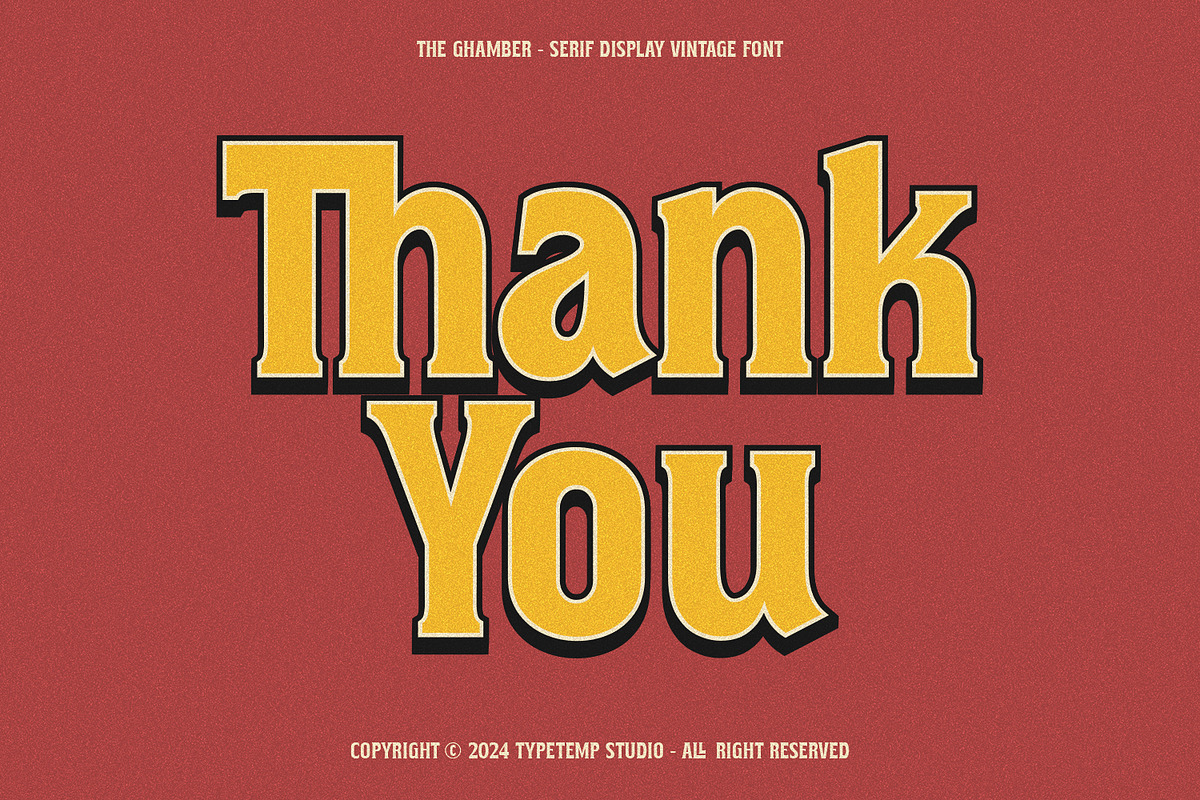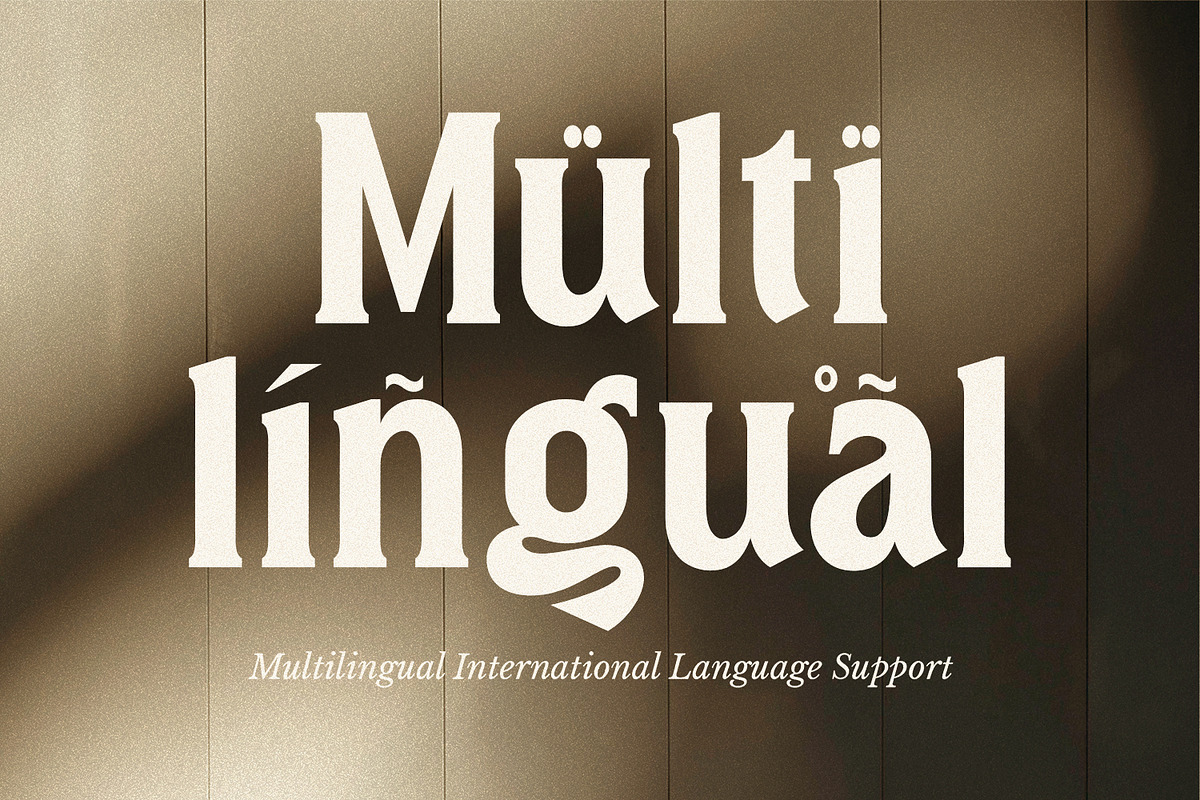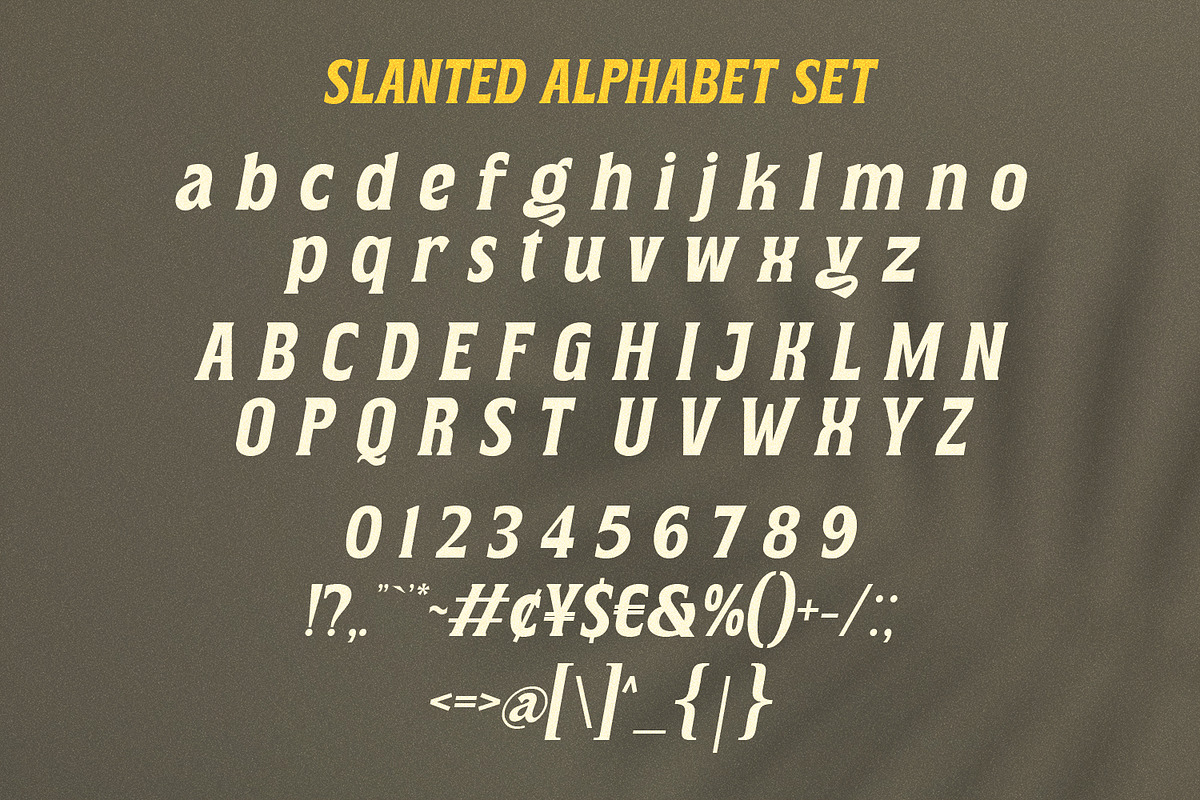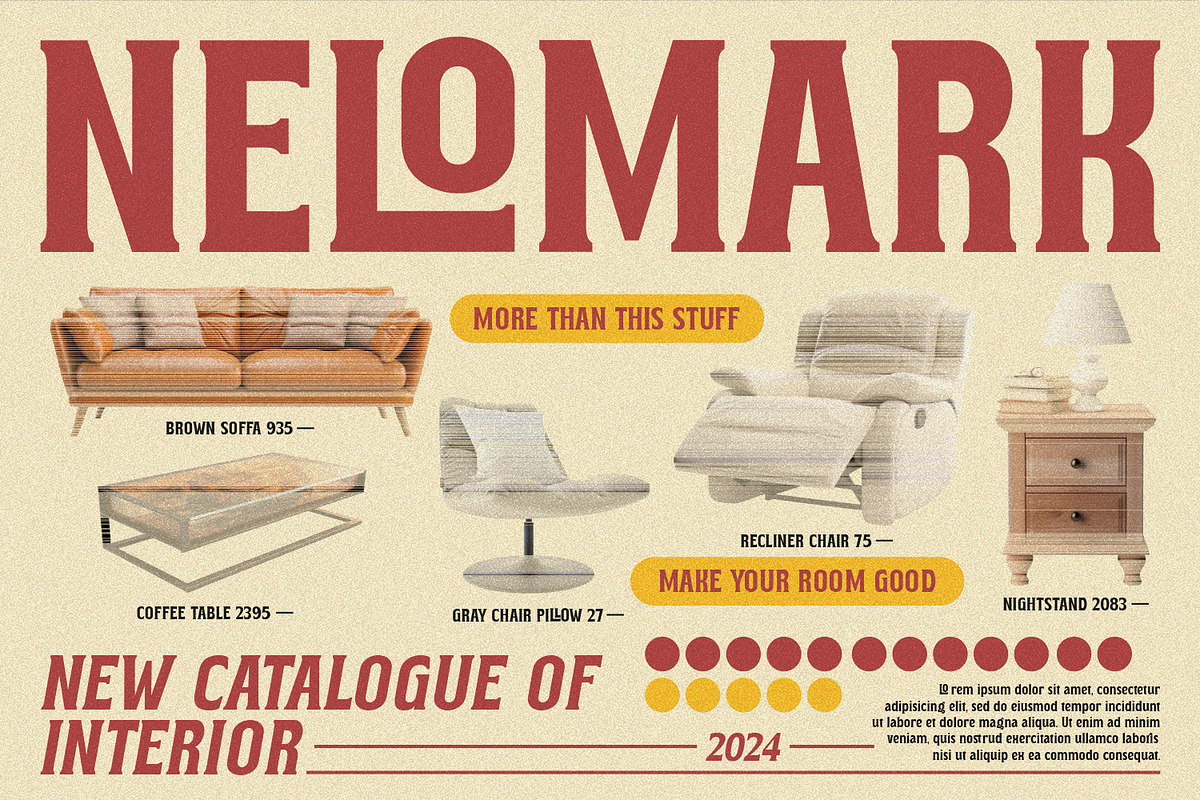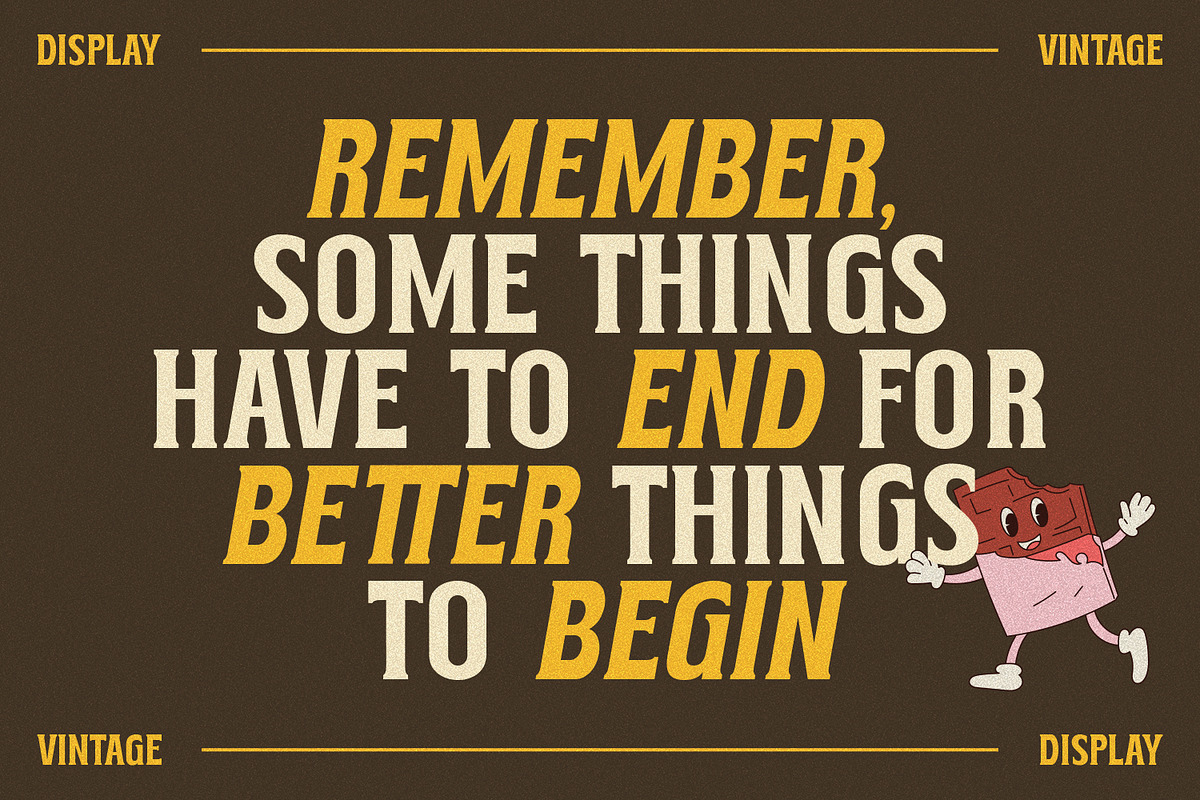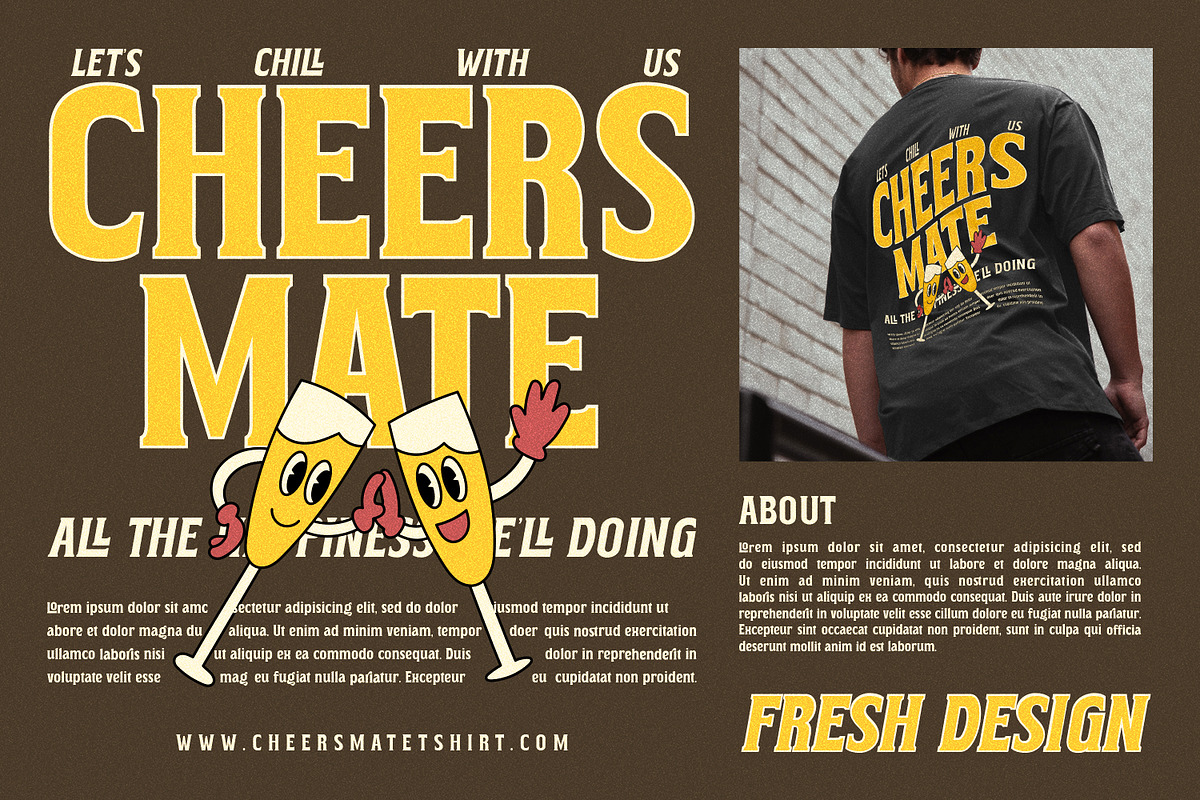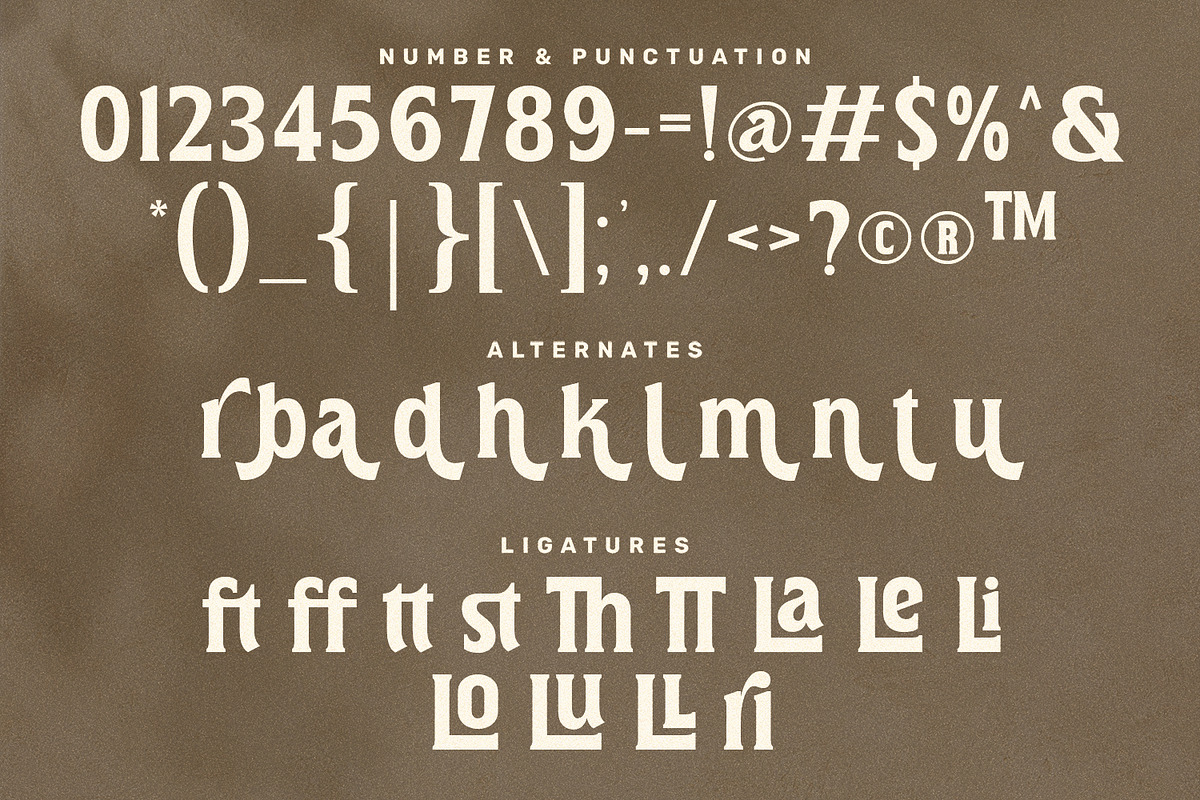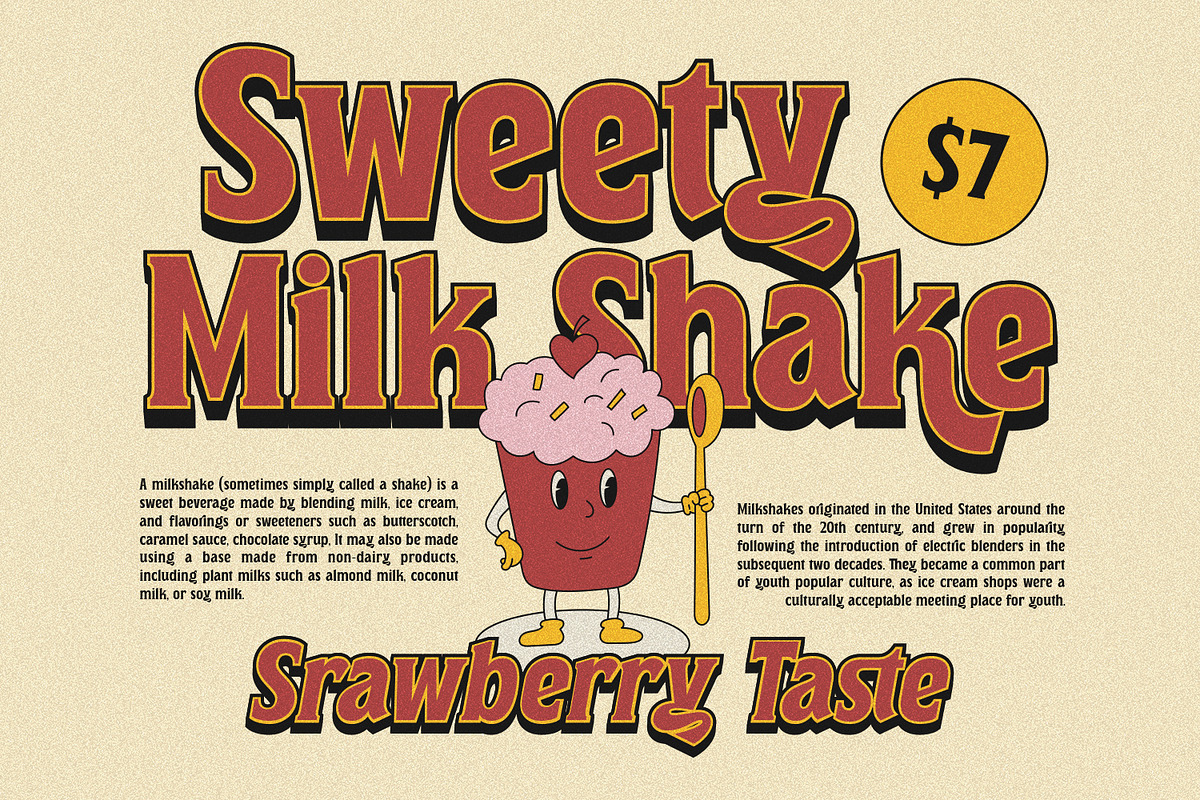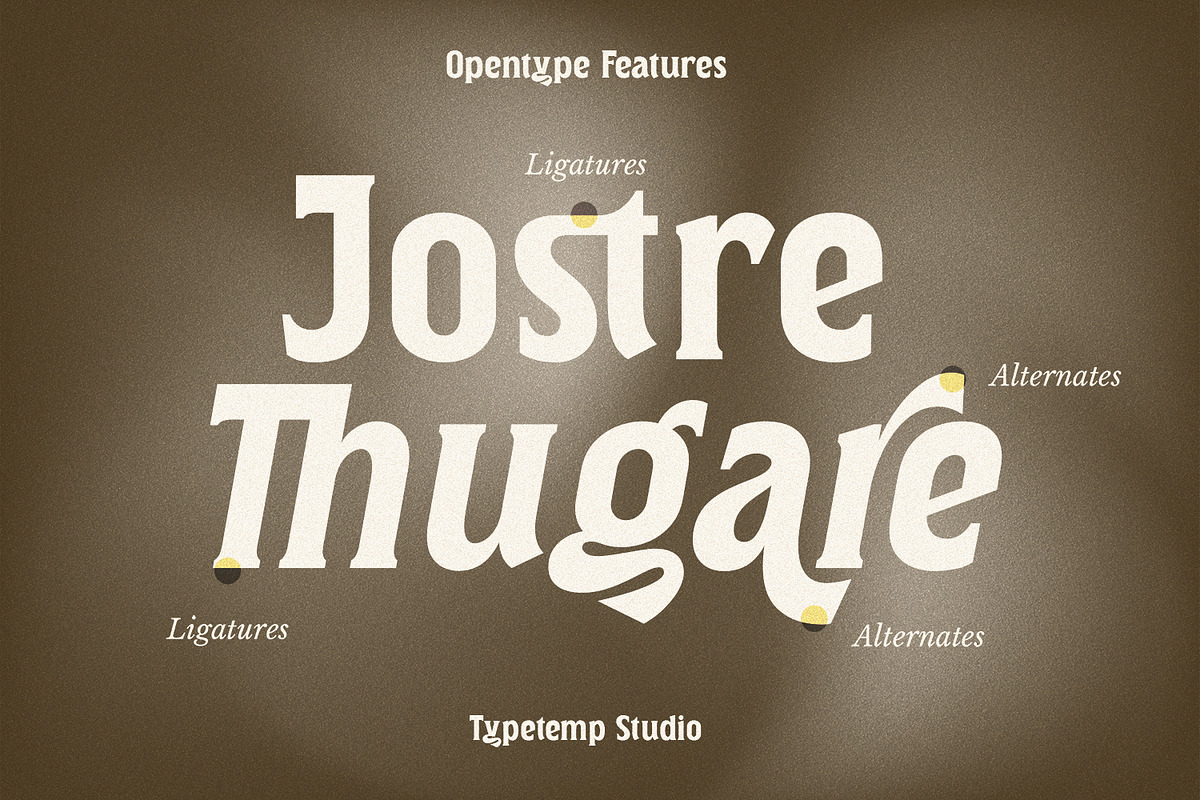
The Ghamber Classic Vintage
The Ghamber Classic Vintage Inspire some retro vintage classic come with alternatives and ligatures, helps to create stunning logos, quotes, posts, blog posts. branding projects, magazine imagery, wedding invitations, and much more.
- Unique Letterforms